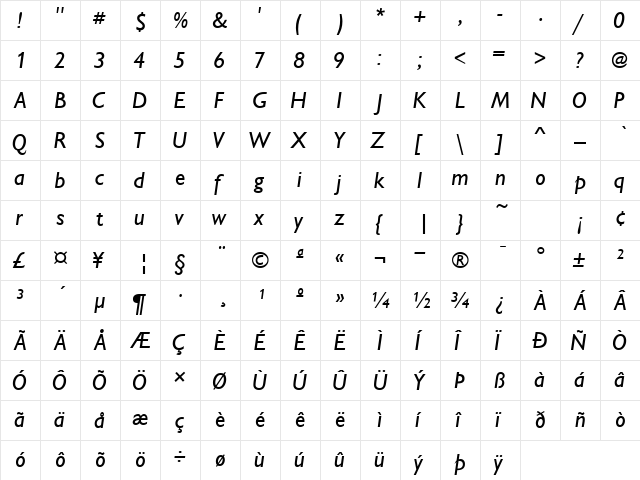
IdiomSSK Italic
Design Context for IdiomSSK Typeface
IdiomSSK offers clean, dependable letterforms without strong stylistic allegiance, making it a practical choice for designers who need flexibility. The dynamic lean of this cut emphasises speed and emphasis in any layout.
Pro Tip: Try IdiomSSK for annotation and caption copy alongside an upright companion — the contrast in angle creates a dynamic but ordered typographic system.